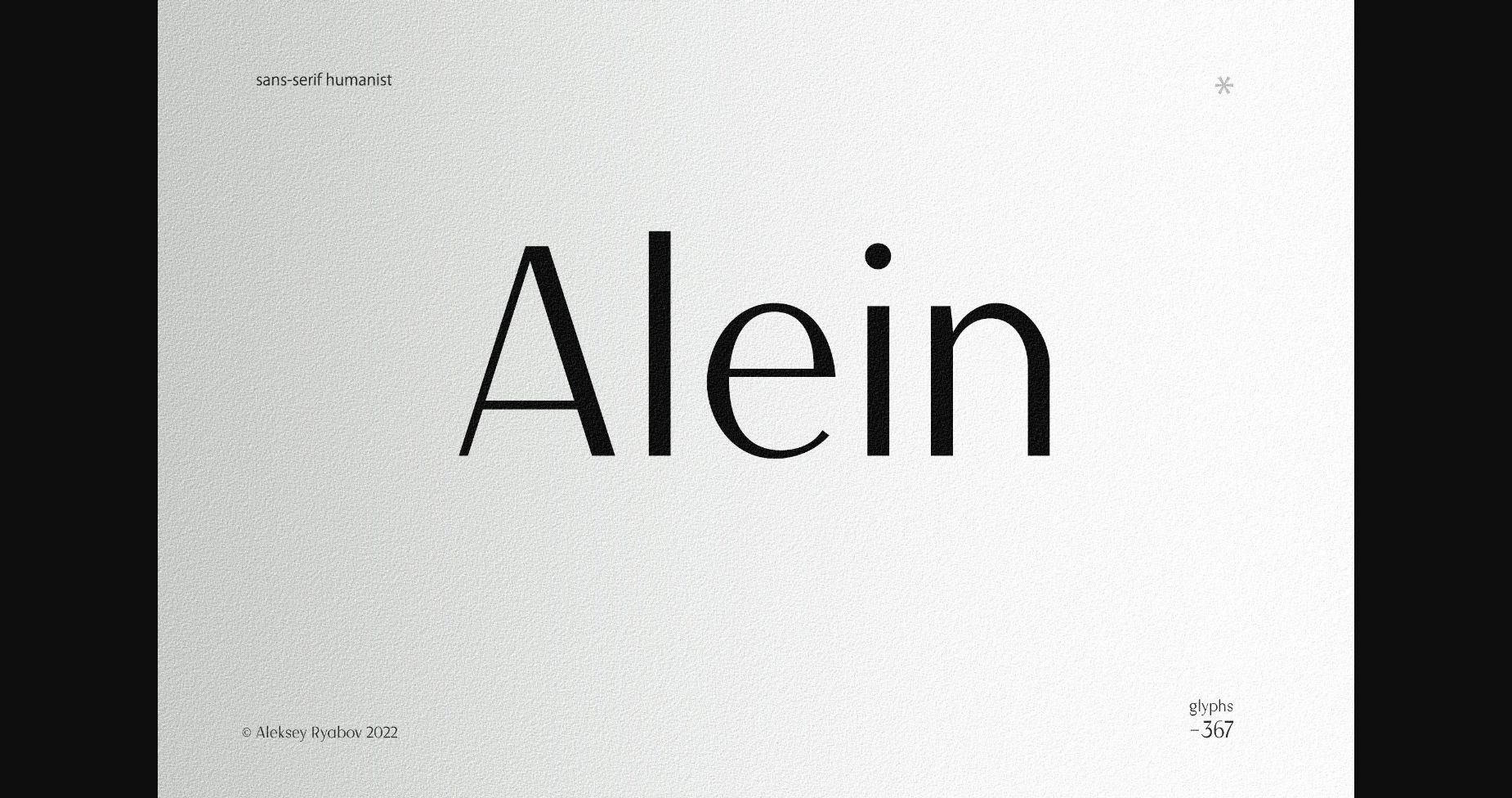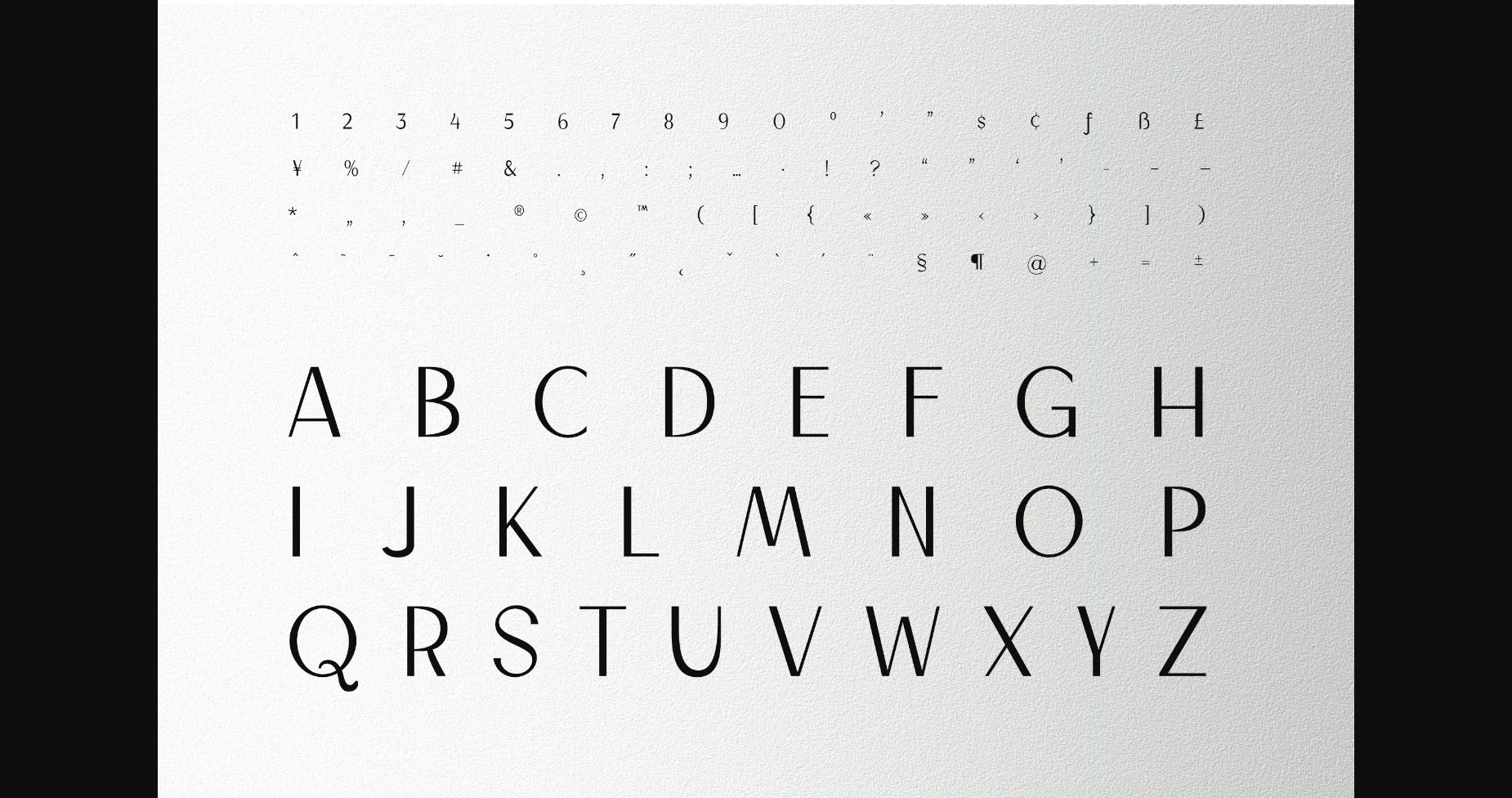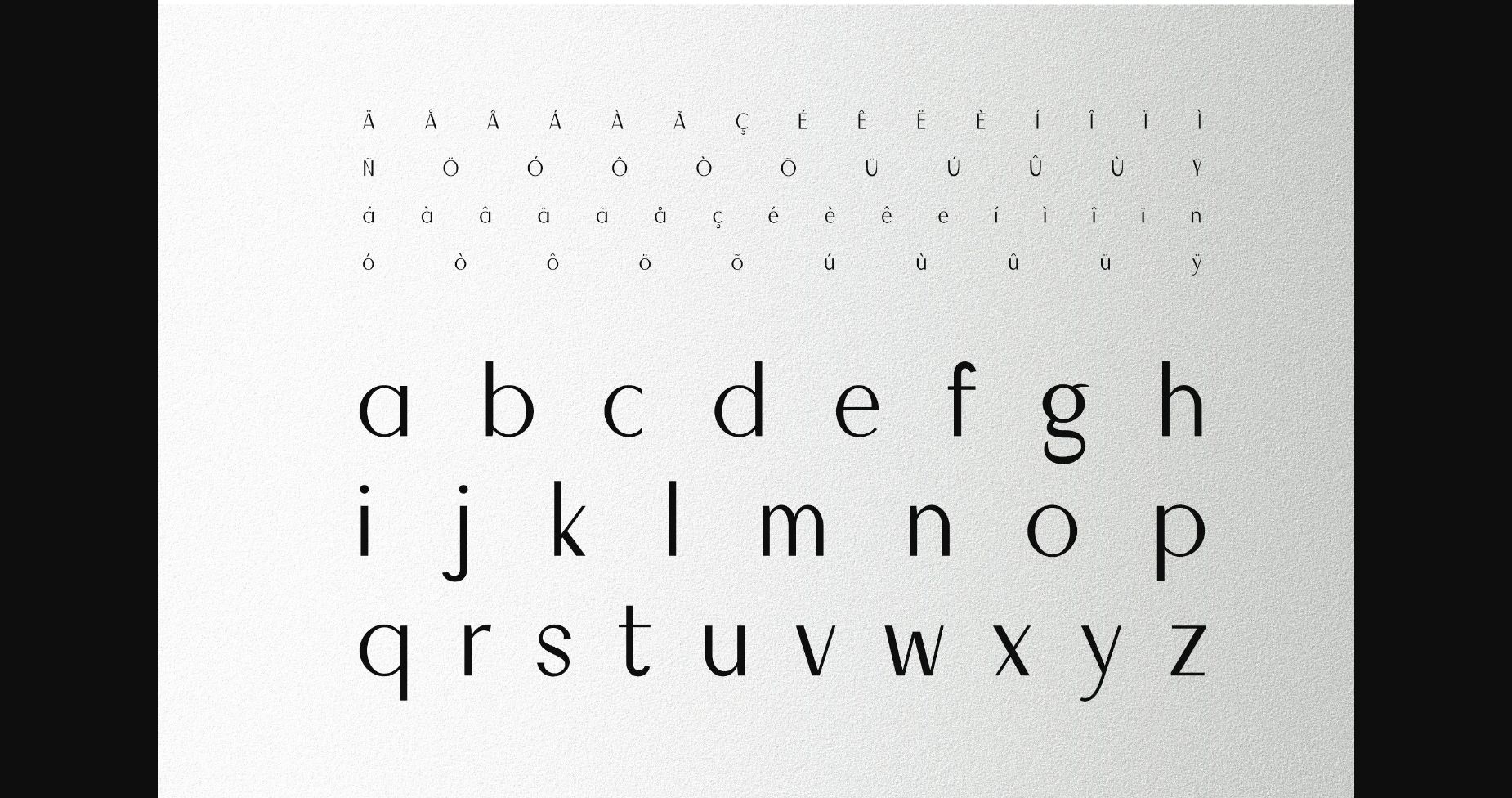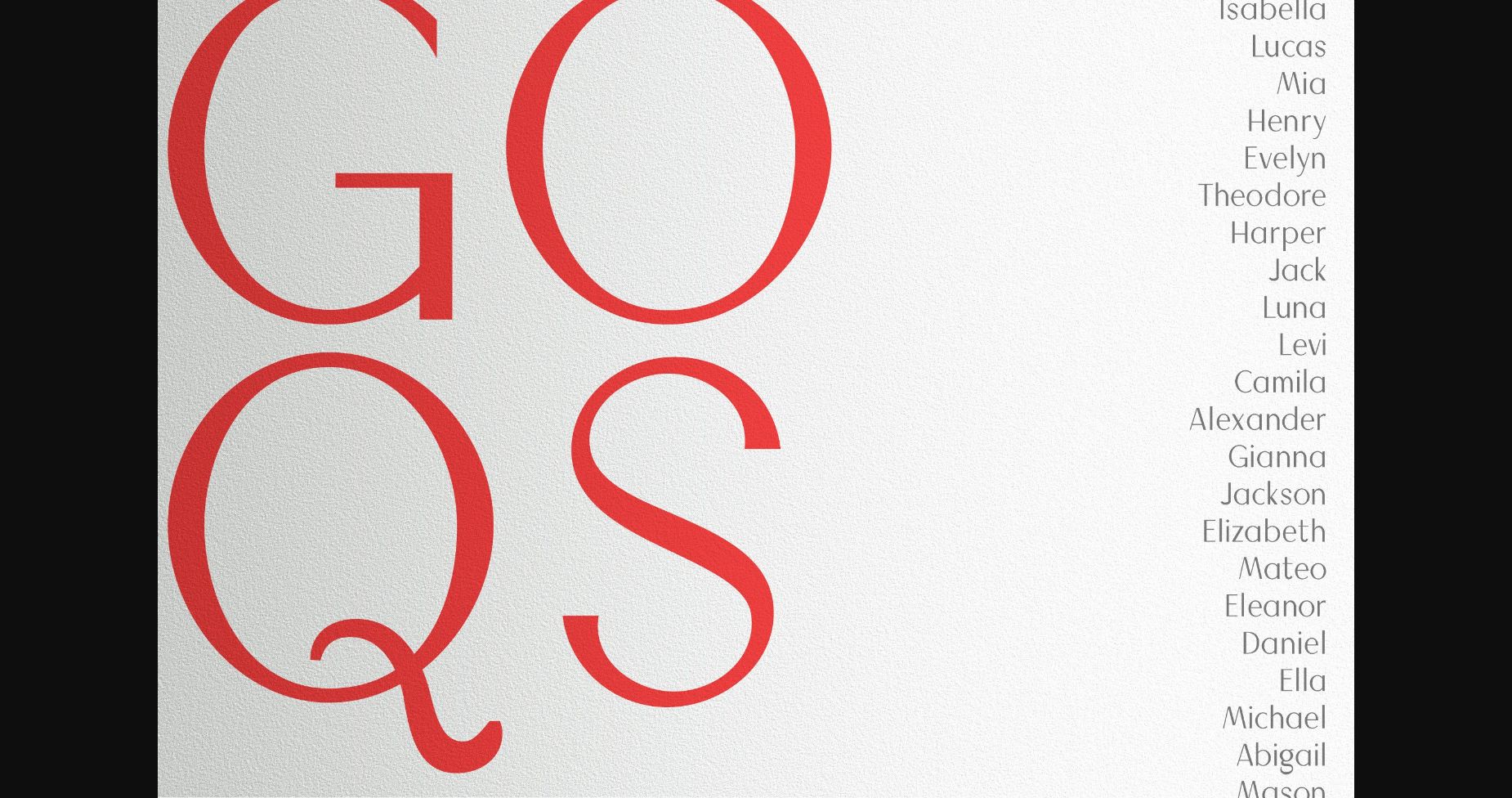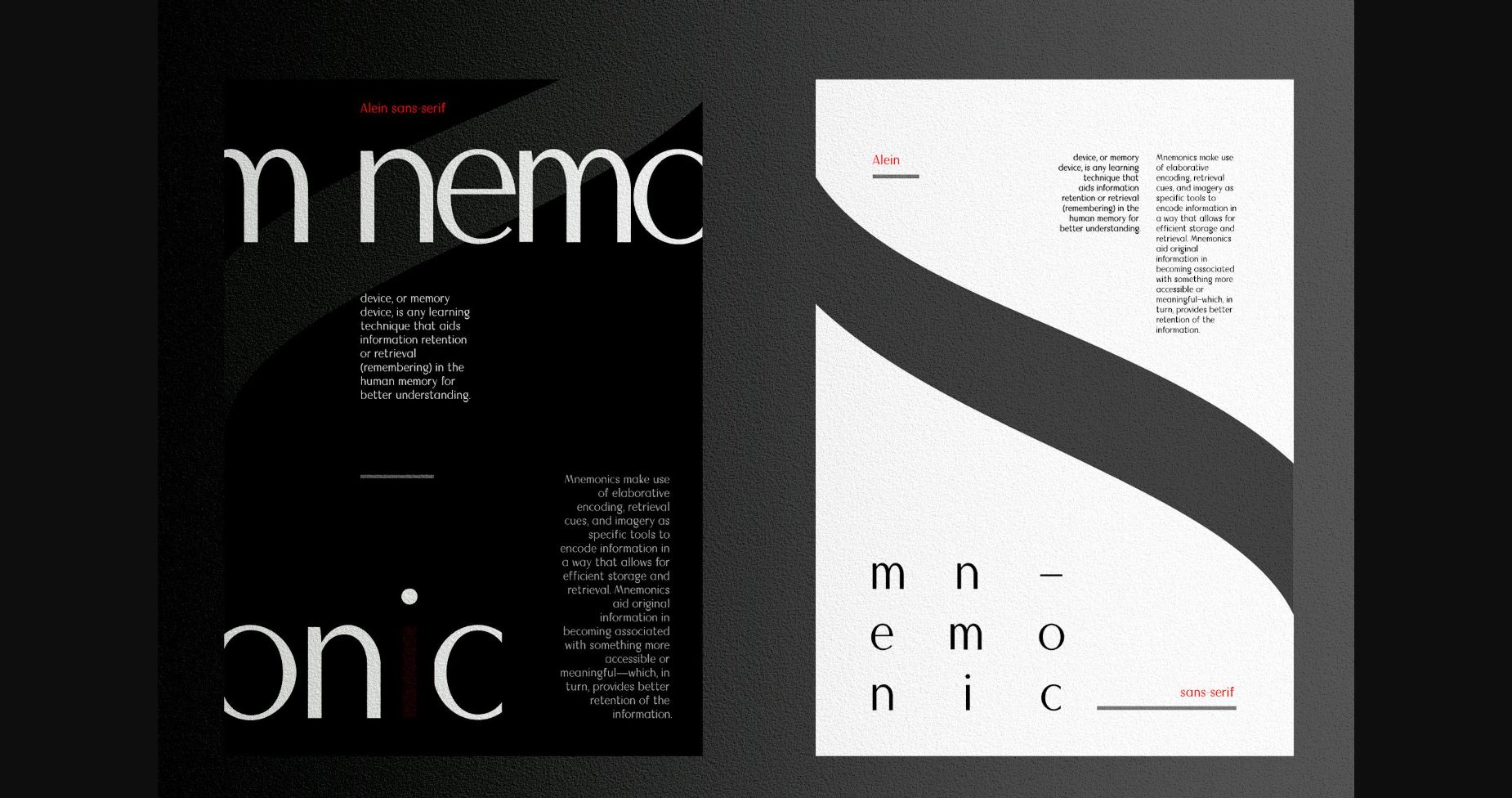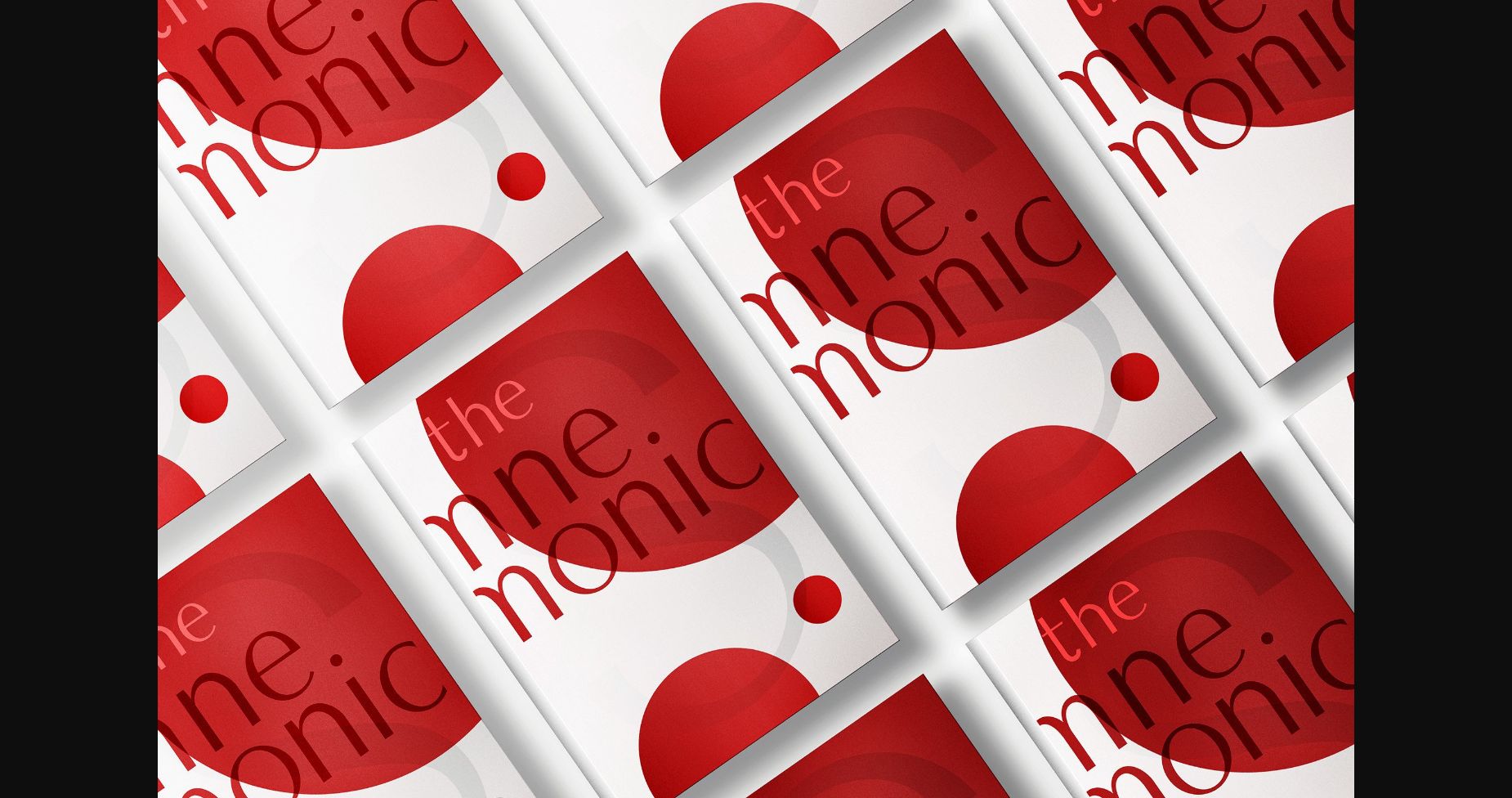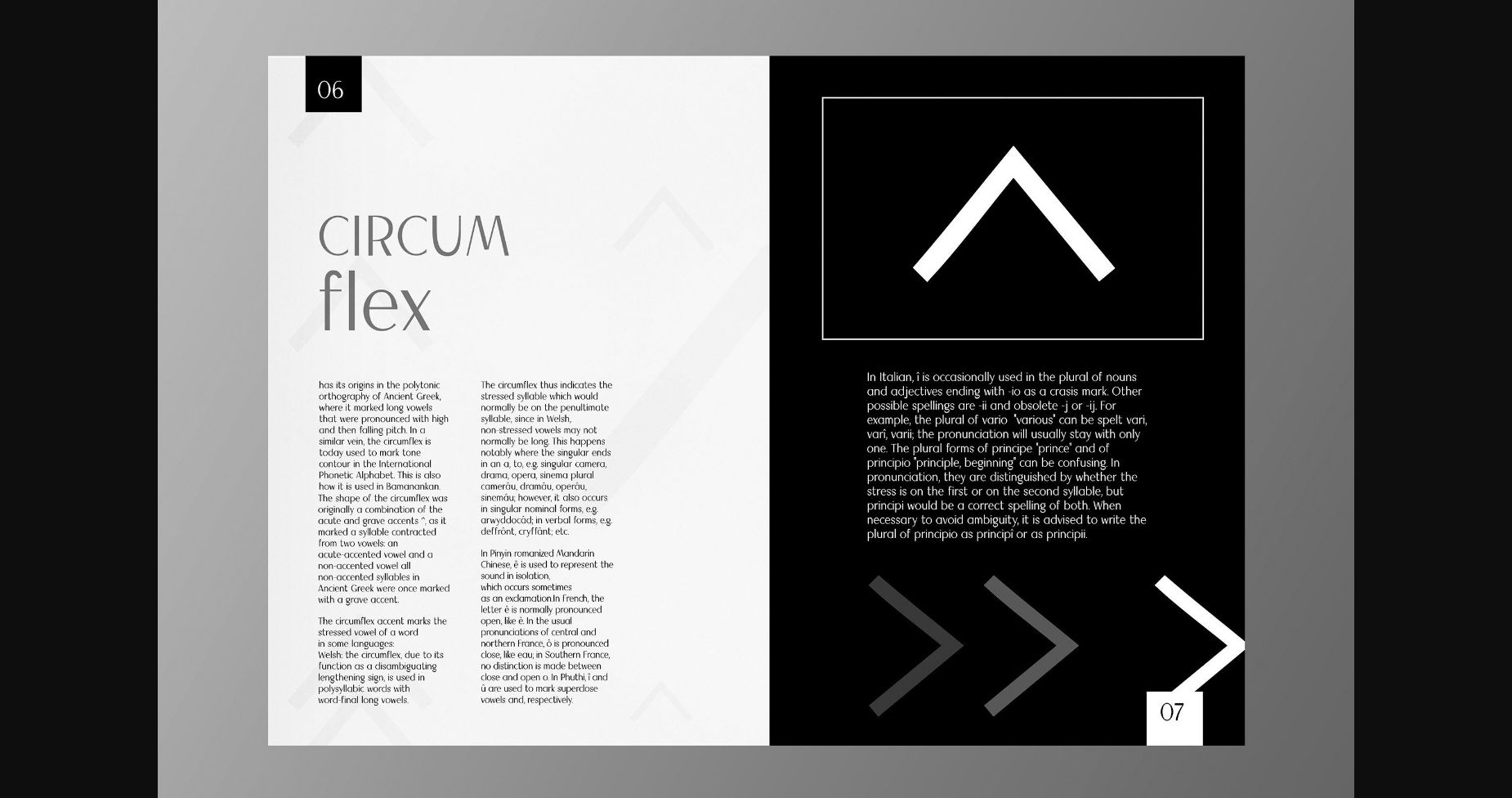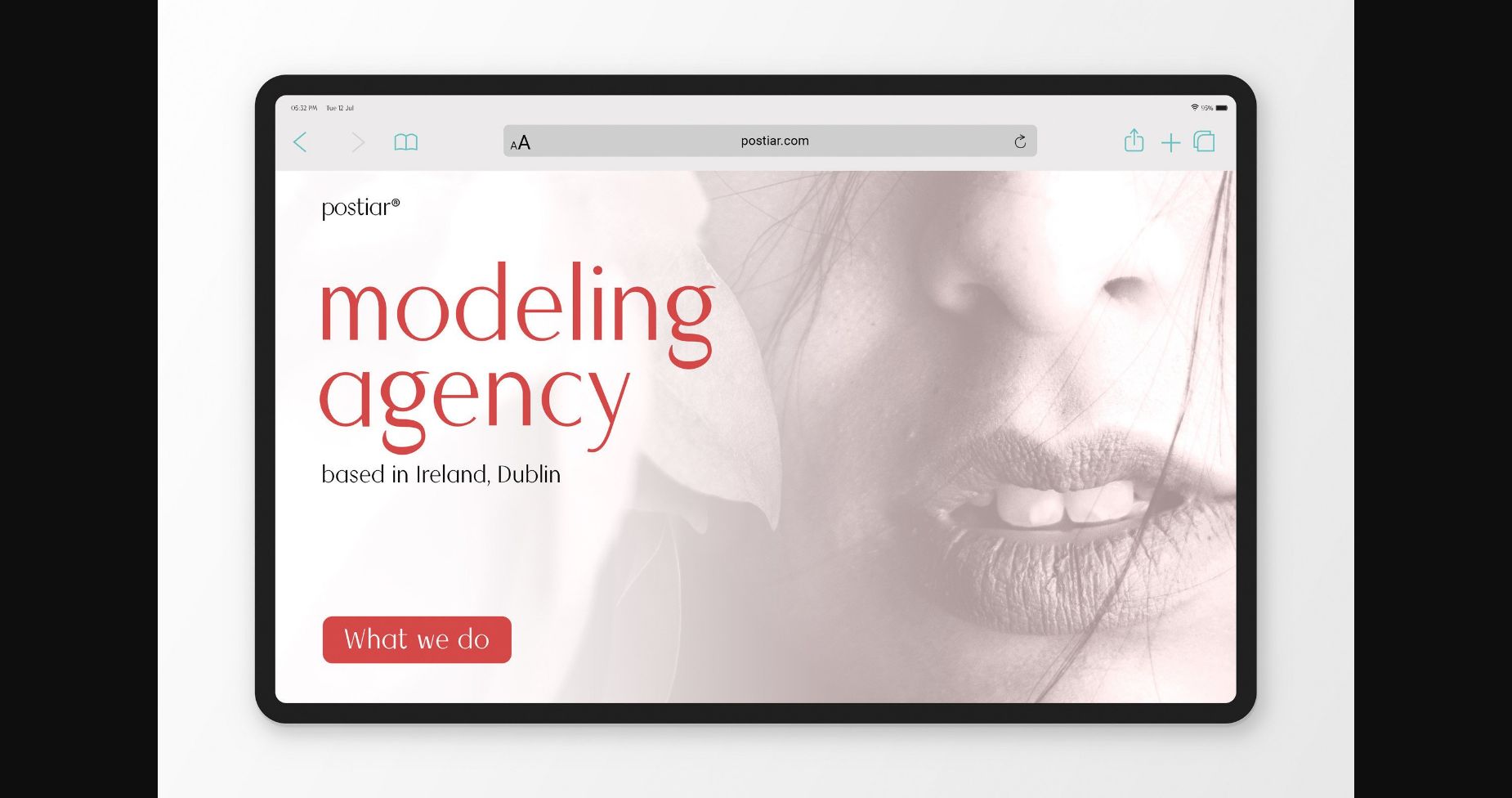
About Alein Font
Alein is a modern and clean sans serif font. Extremely versatile, this typeface is perfect for logos, weddings, invitations, quotes, advertisements, print, magazines, and more!